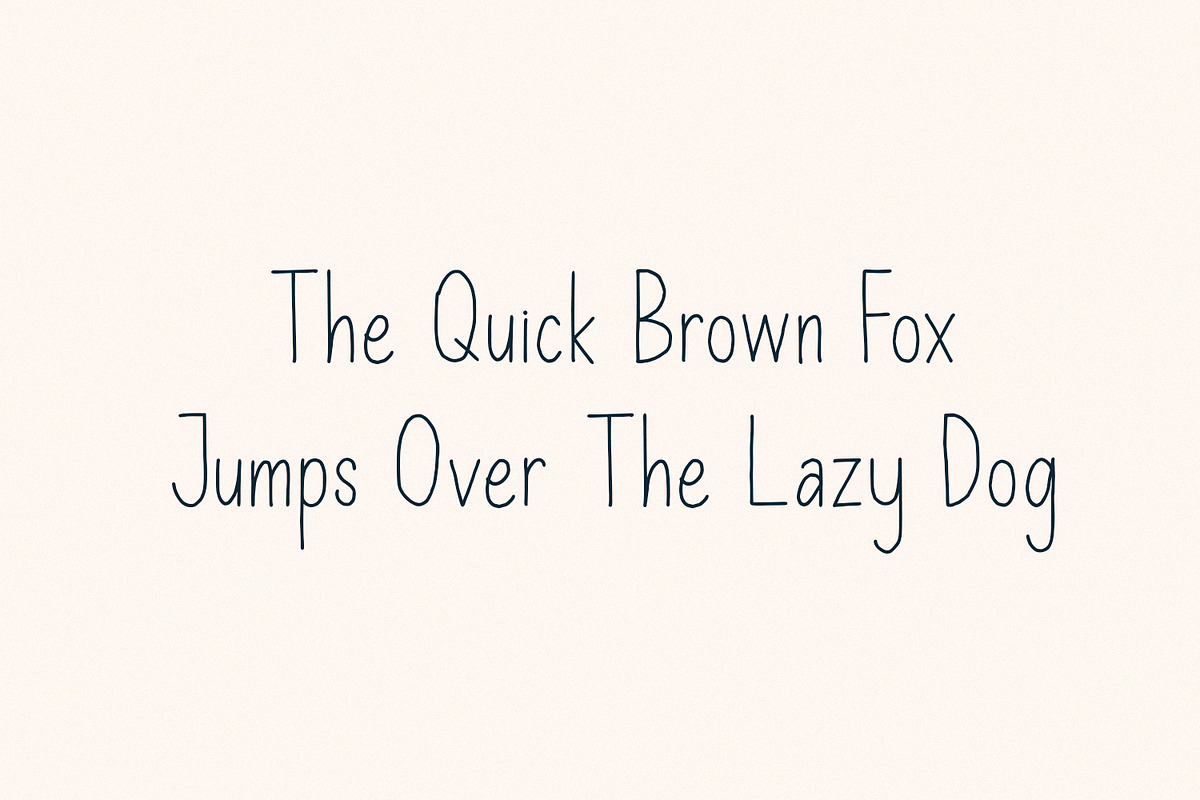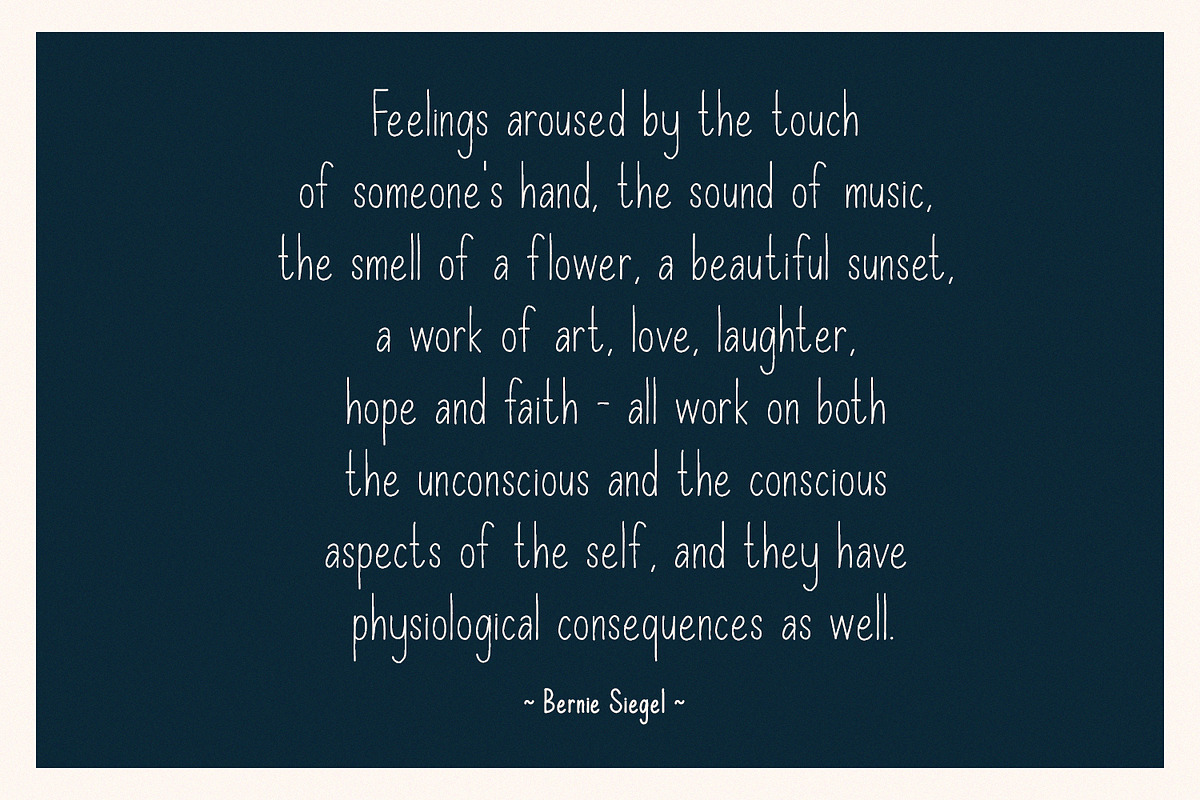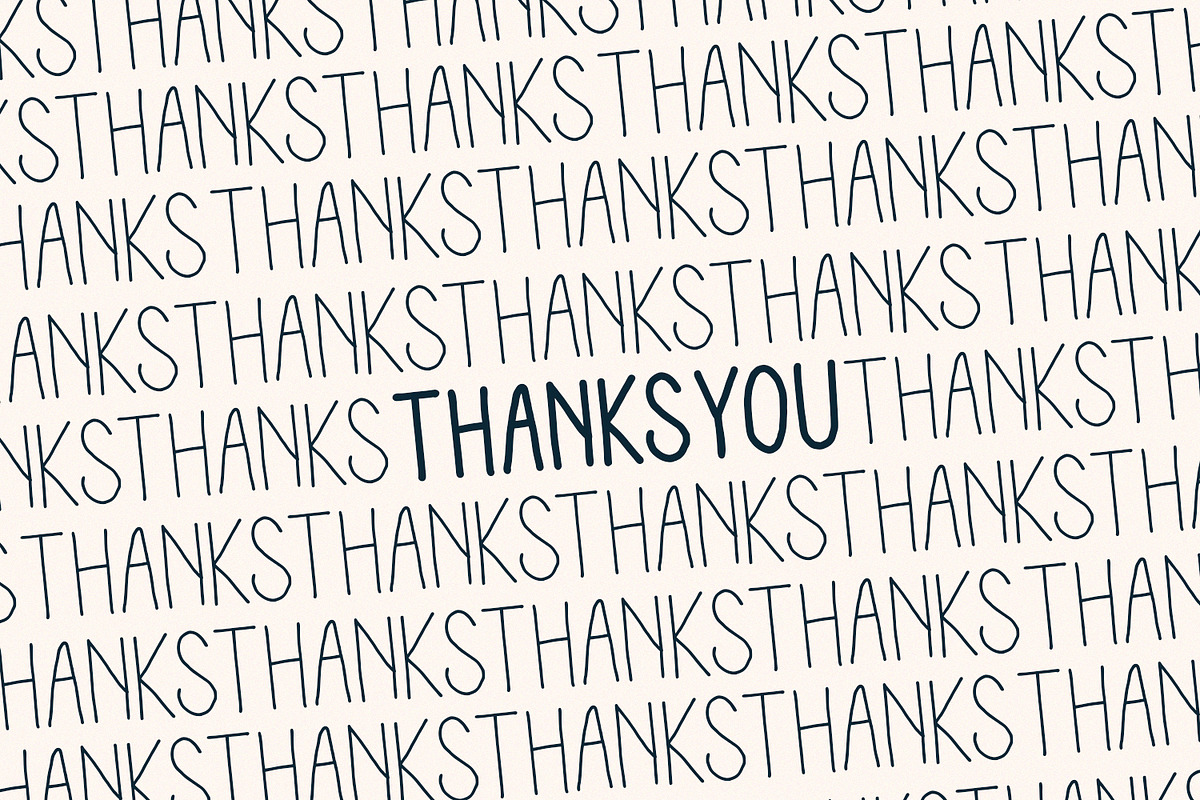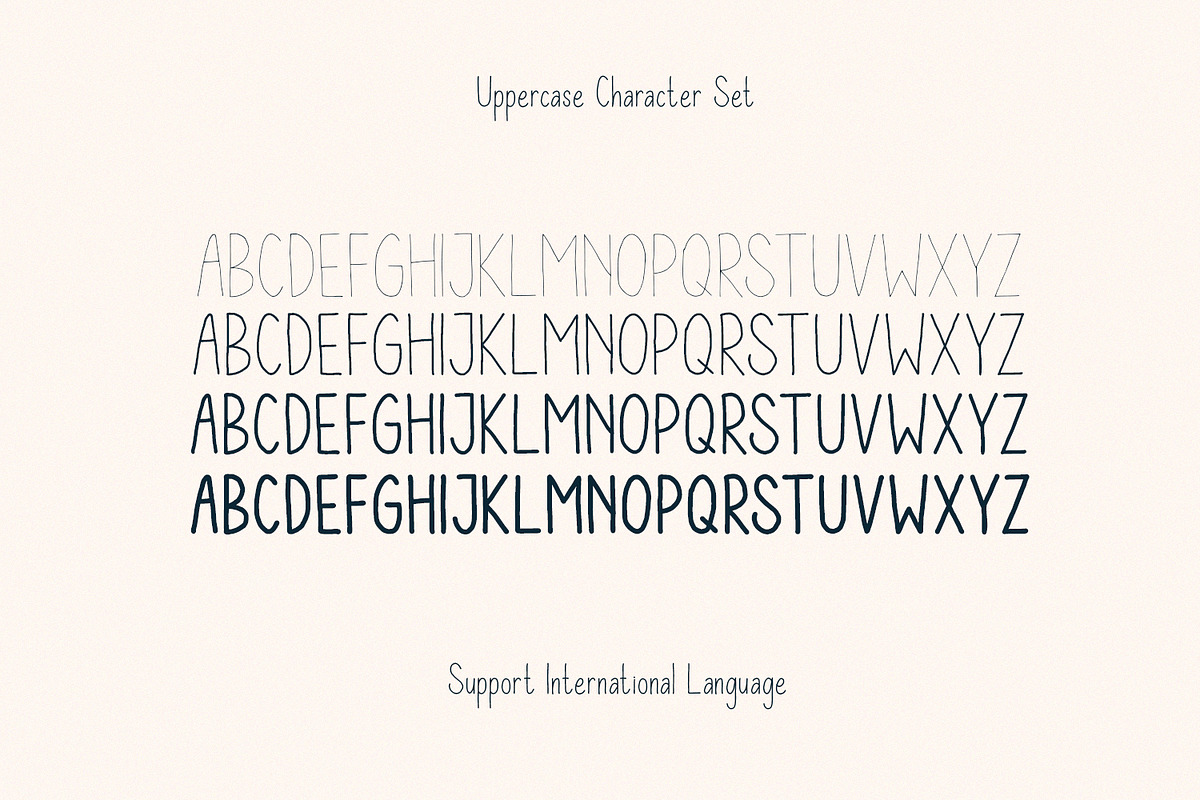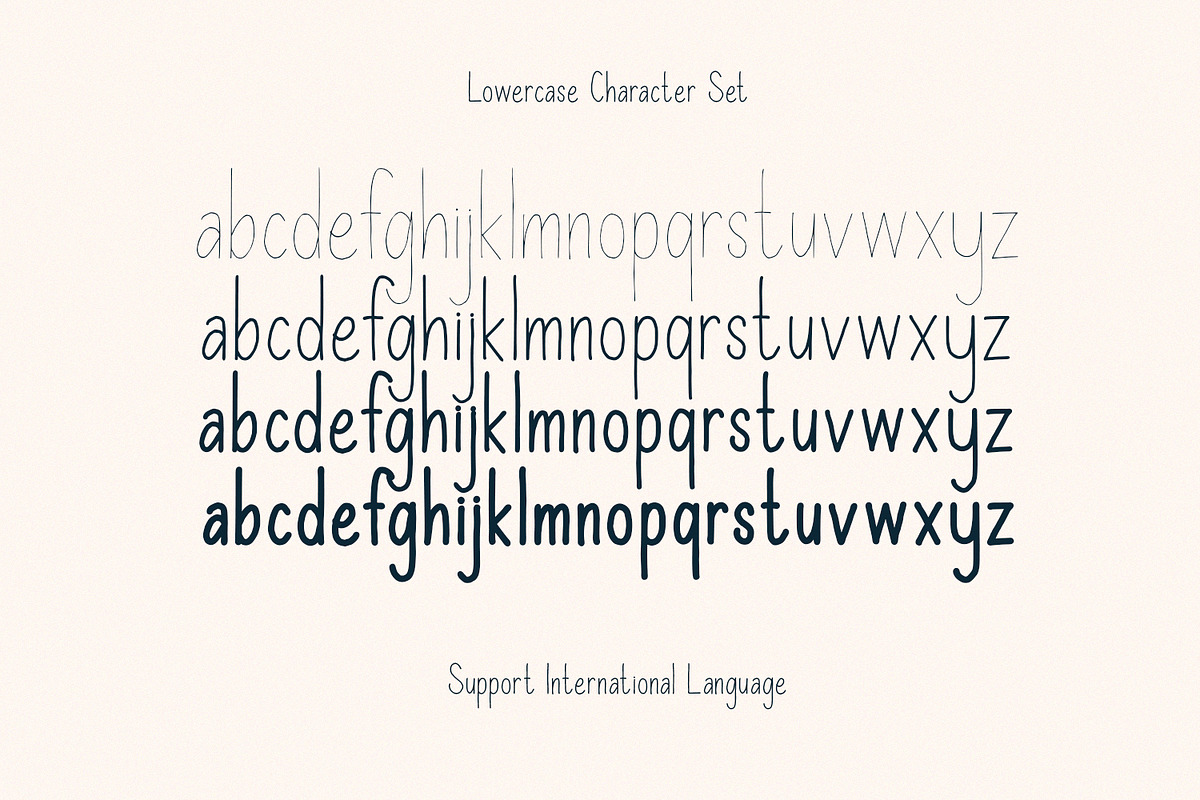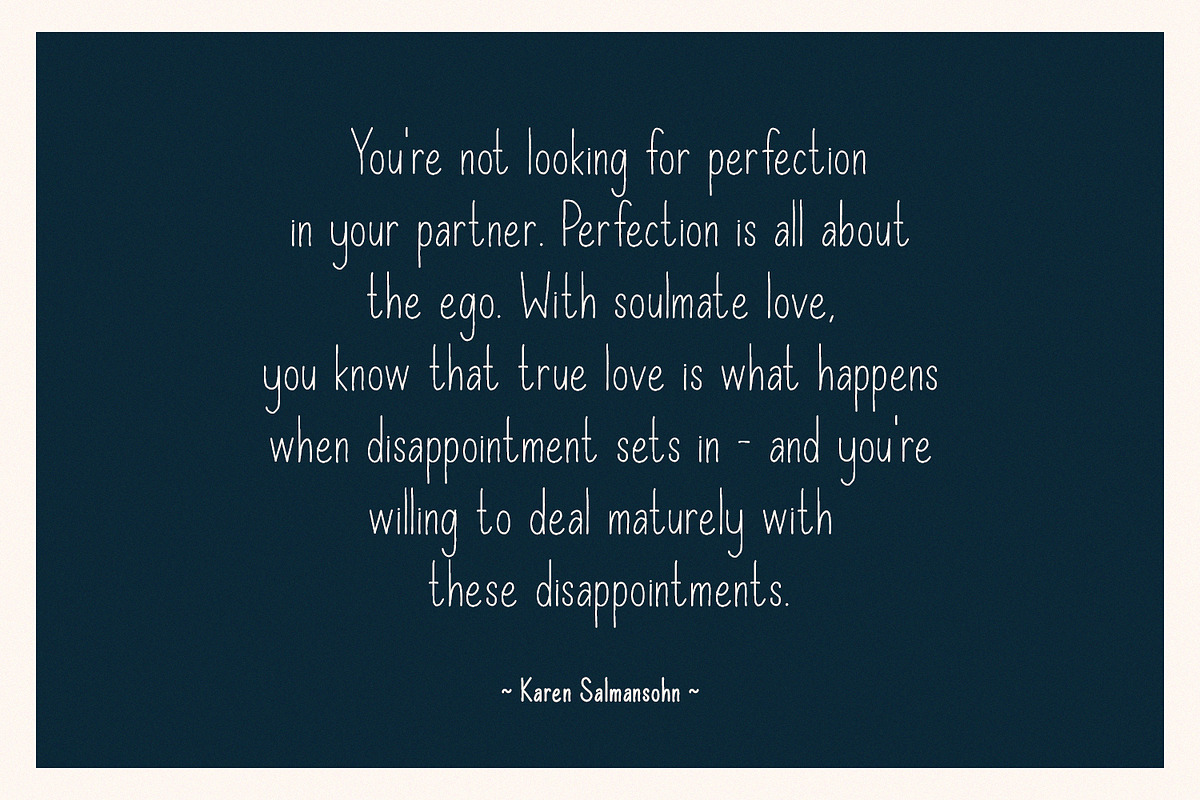
Vernal Park Font Family
Vernal Park Font Family - A Handwritten Sans Serif, every single letter has been carefully crafted to make your text looks beautiful. it's perfect for logos, name card, magazine layouts, invitations, headers, or even large-scale artwork.
1. Vernal Park - Regular, light, bold and thin version, sans serif font including upper & lowercase characters, numerals and more of symbols.
2. Multilingual support for various languages
Vernal Park Font Family by Graphicfresh fits naturally into Branding, posters, packaging, typography.